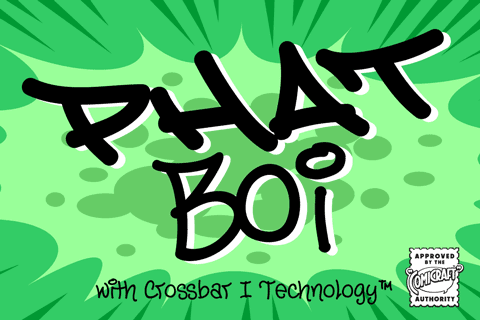
Word up! DJ Phatboi and triple threat JG Roshell has been bustin’ out for all the young font gunnahs out there. He bein’ crazy, givin’ out the love and non-stop dope moves... You feel it? Be showin’ ya respect and holla at the Phat Boi an’ y’all be cool. Aiiiigggghhht?! Phatboi is Da Next Big Thang! Stay bent.
JG originally created Phat Boi for titles in the mid-90s cyberpunk comic GHOST RIDER 2099, and it has since become the go-to whenever a wall needs scrawling!
• Two weights with upper & lowercase alphabets
Languages: Complete Europe (221)
Plus: Crossbar I Technology™
Phat Boi – Ultra-Bold Playful Display Font
Make a heavy-hitting statement with Phat Boi, an ultra-bold display font designed for maximum impact and playful energy. Featuring thick, rounded letterforms and a fun bounce, this headline typeface is ideal for children’s book titles, mobile game graphics, food packaging, and animated cartoon branding. The Phat Boi package includes upper and lowercase alphabets across two weights, complete European language support, and Crossbar I Technology™. Add Phat Boi to your design toolkit today!